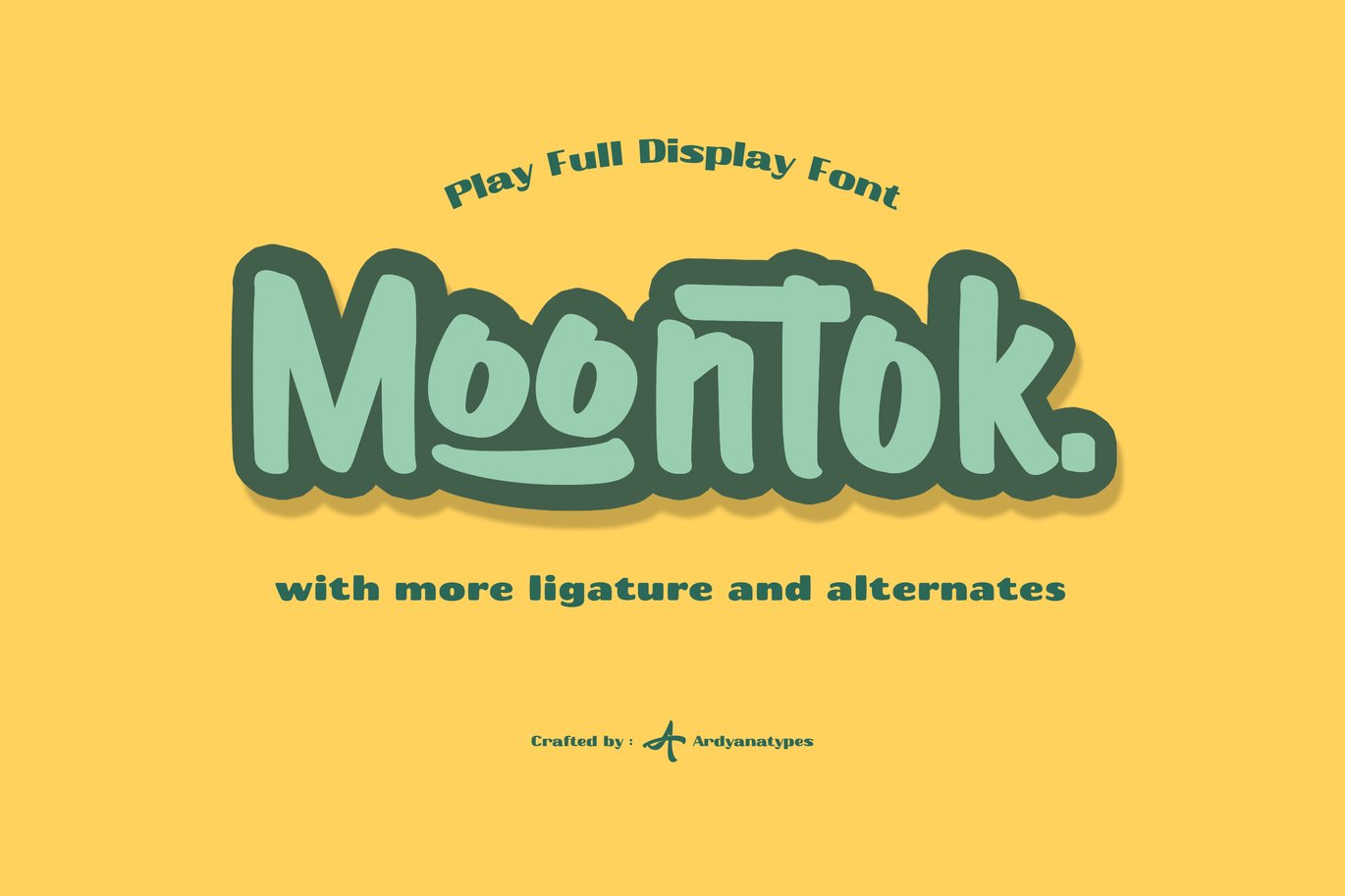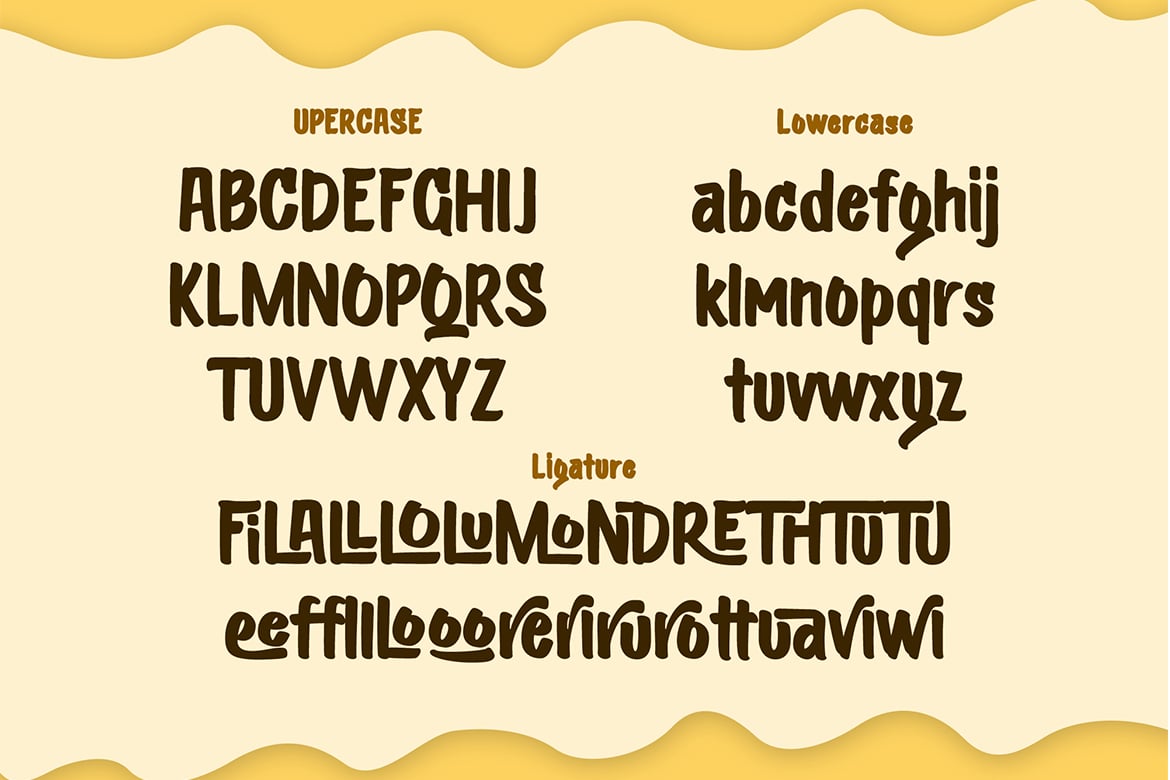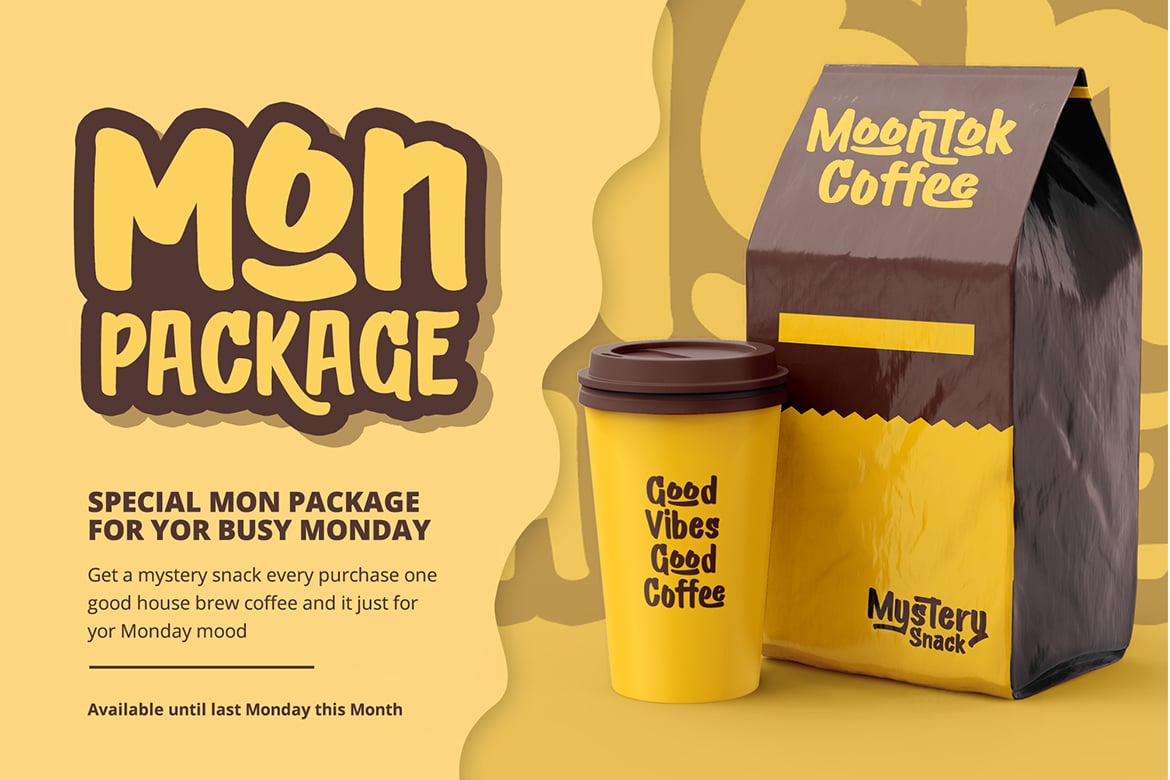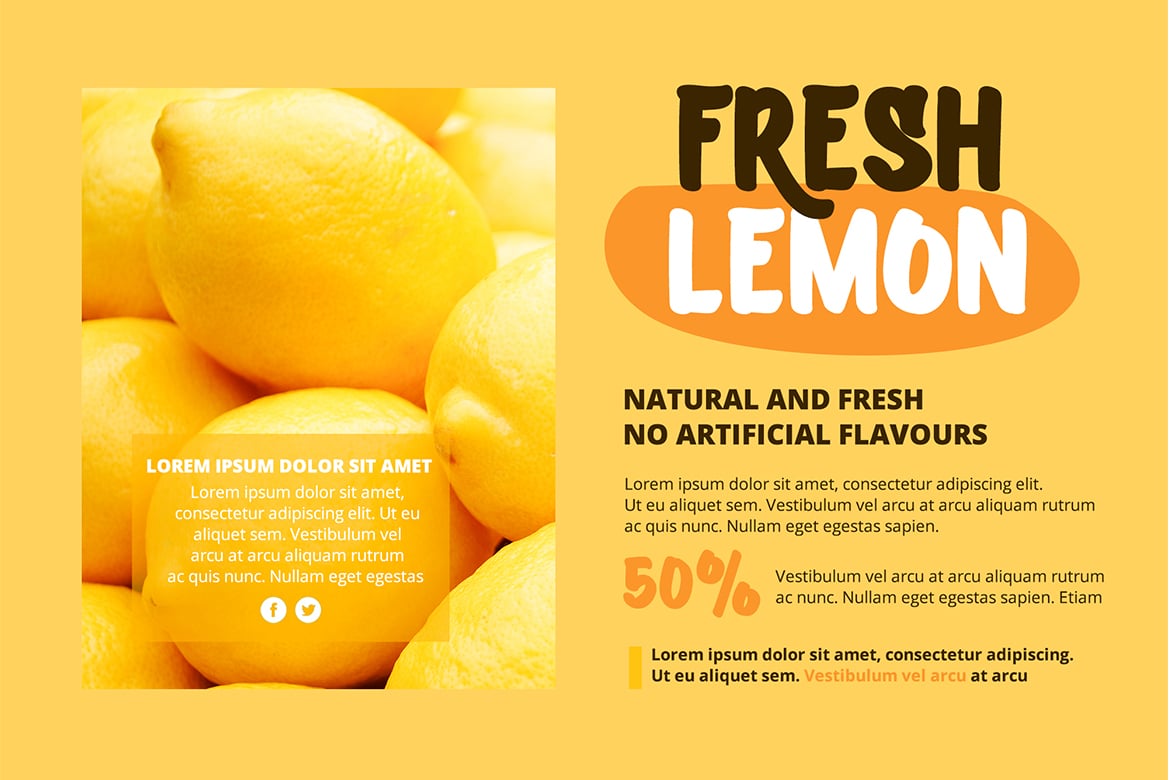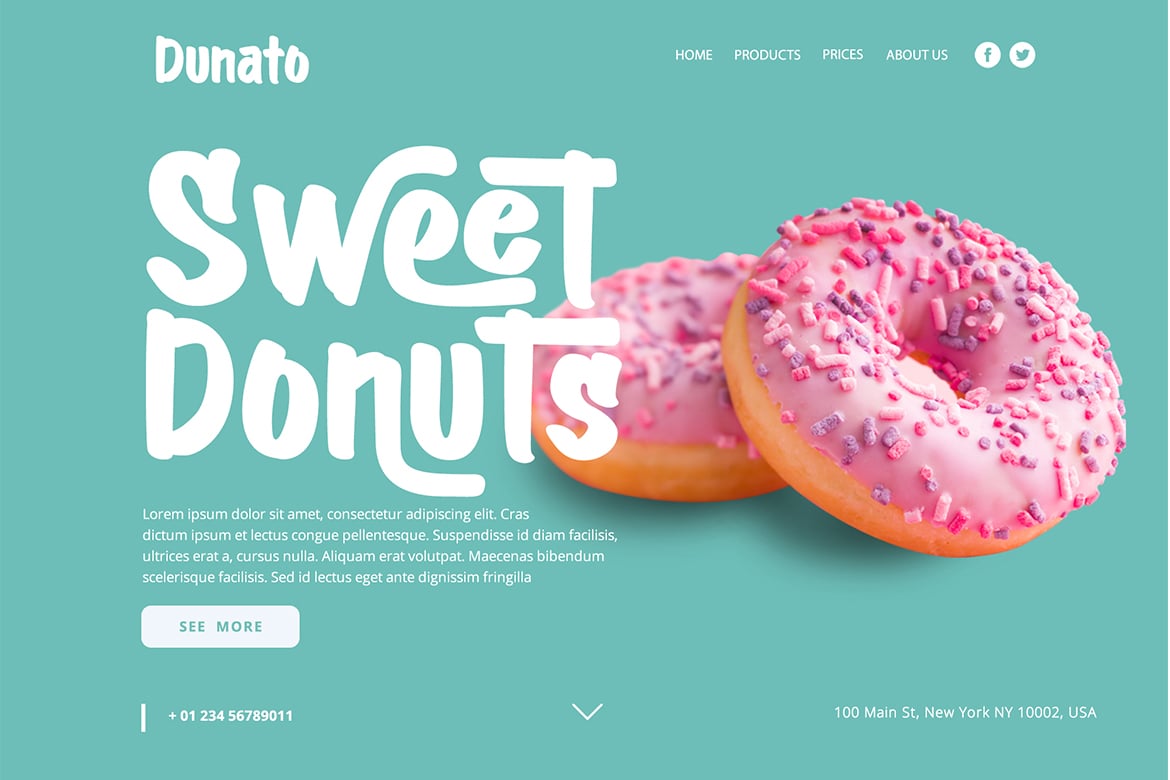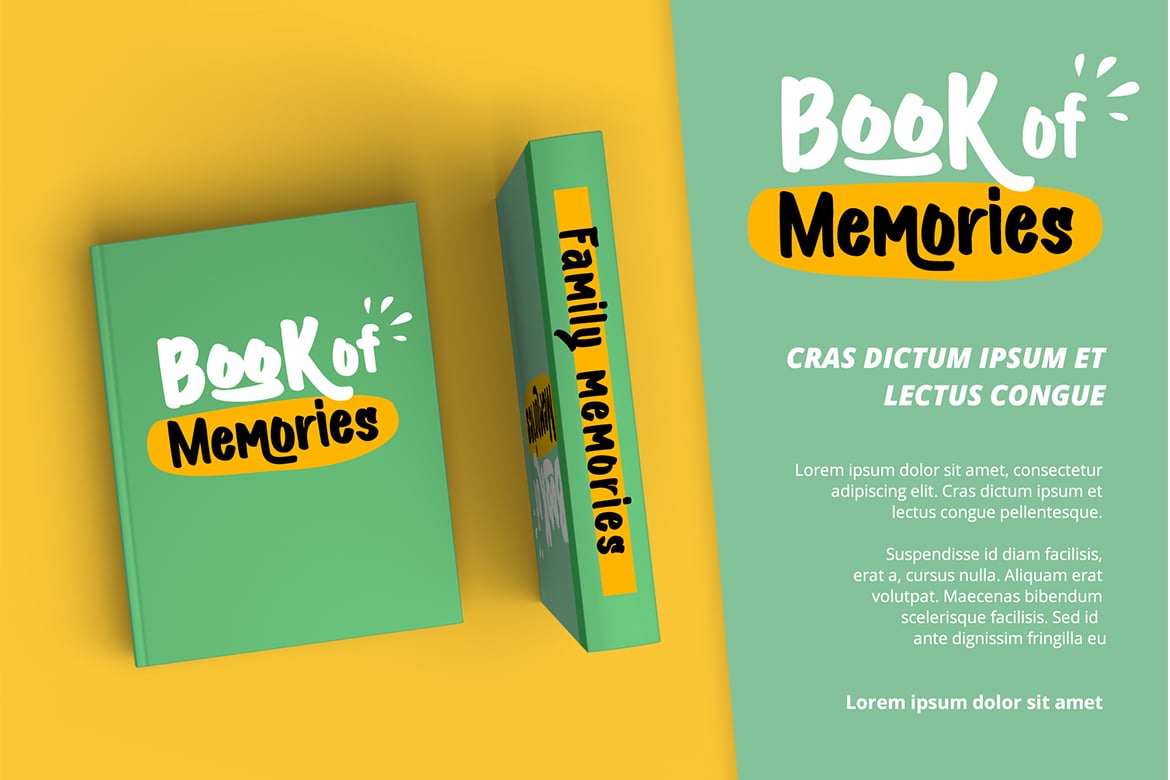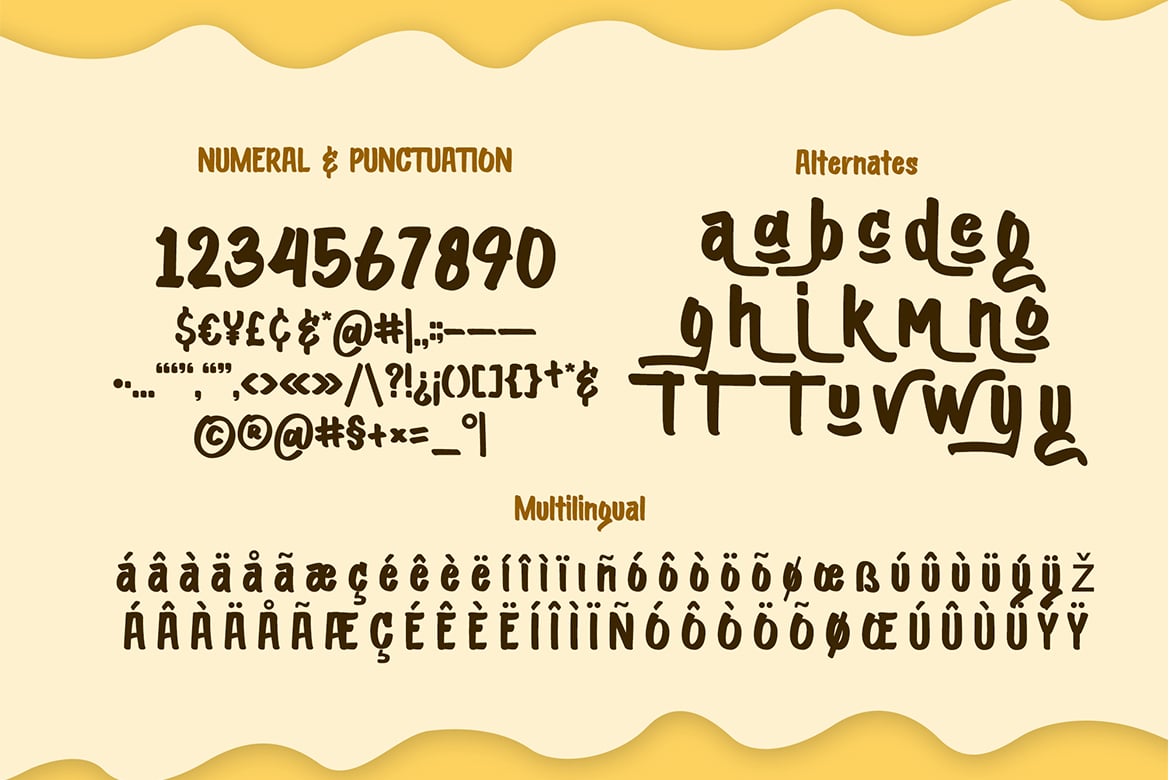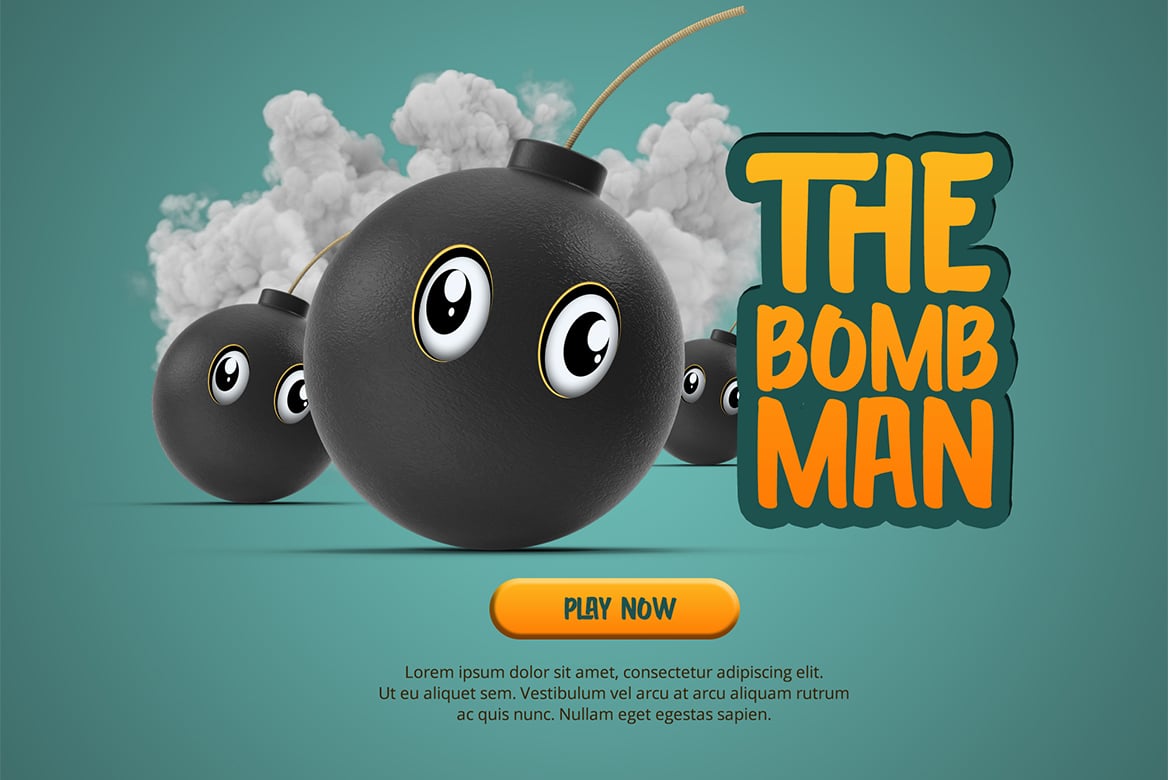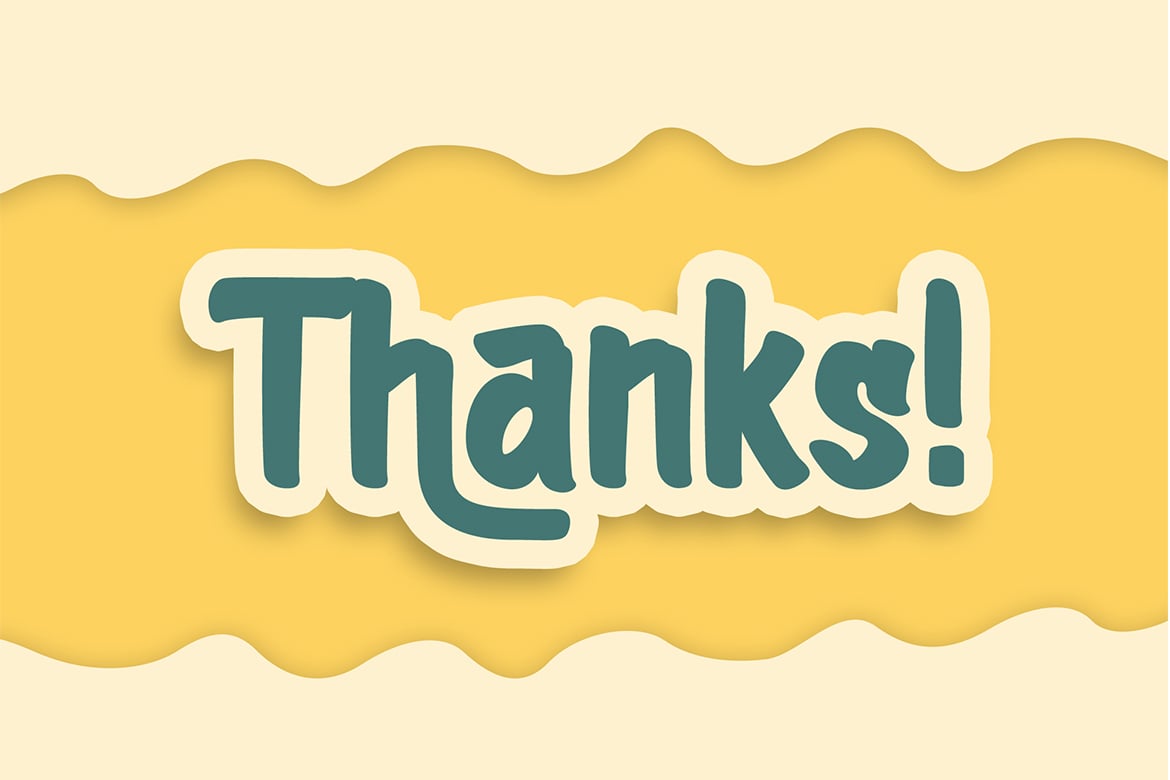
Moontok – Play Full Display Font
Hello, Let’s play with Moontok!
a handmade font with a fun, sweet, also playful type character that gave extra cuteness and perky at once. Like how it named, the cheerful shape bring imaginations to fluffiness, sweetness, cuties, cookies, coffee latte smells, cheesecake, happy kids, even refresh summer trip
Moontok has an OpenType feature that will automatically change each character into stunning ligatures, easy! The alternates tail bring cheerful accent to your wondrous display composition, both make more flexible exploring your needs and also including sexy punctuations
Even the font shape has a fun impression, the clear bold line still fit to represent something cool and fresh also making it very easy to read and applied in various design styles such as crunchy poster designs, snacks packaging, logos, promotional artworks, storybooks, business cards, website header, and many more design projects.
Moontook has its own charm of cheerfulness itself moreover combined with sharp and funny color. It will so easy to remember, catchy and flawless.